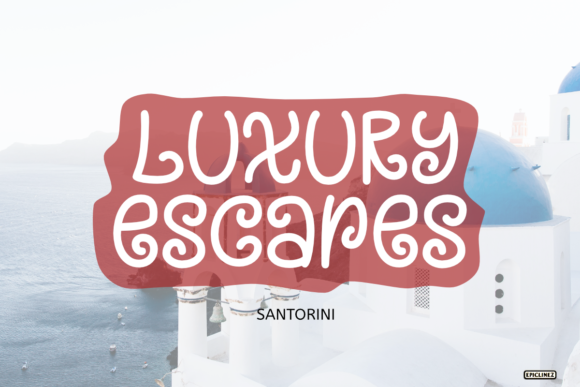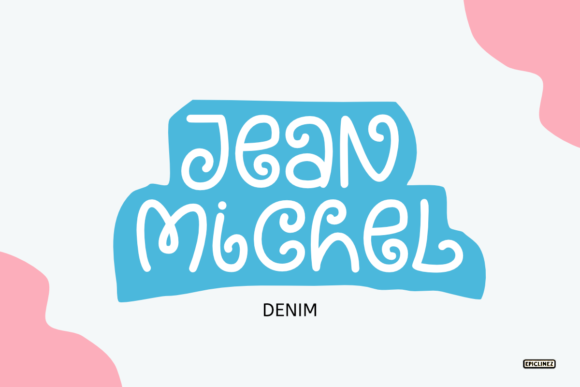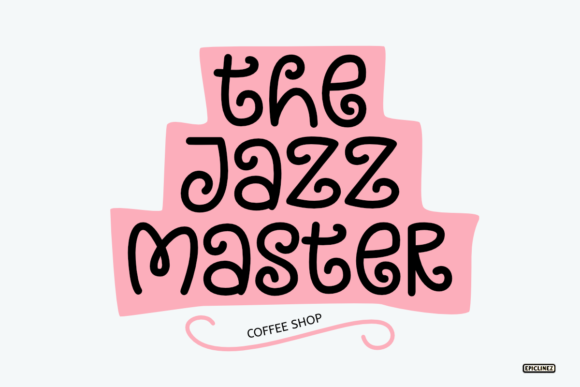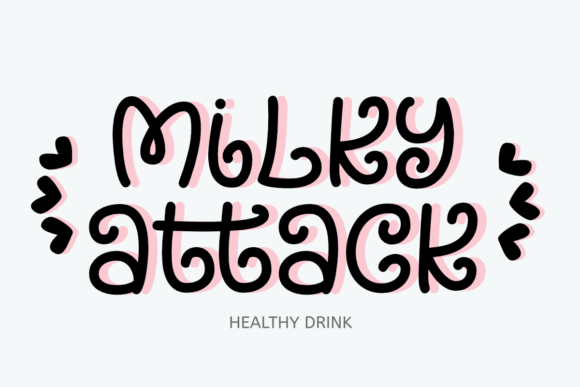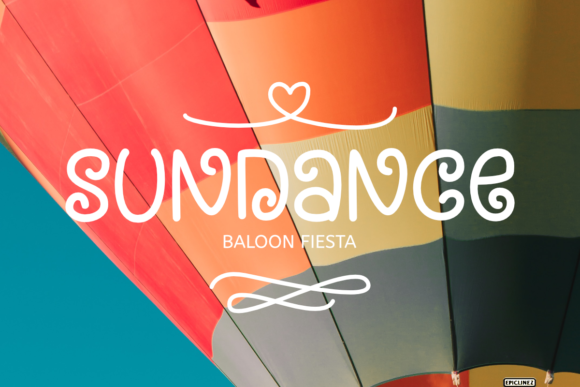
Margaret River Font
About Margaret River Font
Margaret River is a cute and funny handwritten font. It is very suitable to use for logos, headlines, brandings, etc.